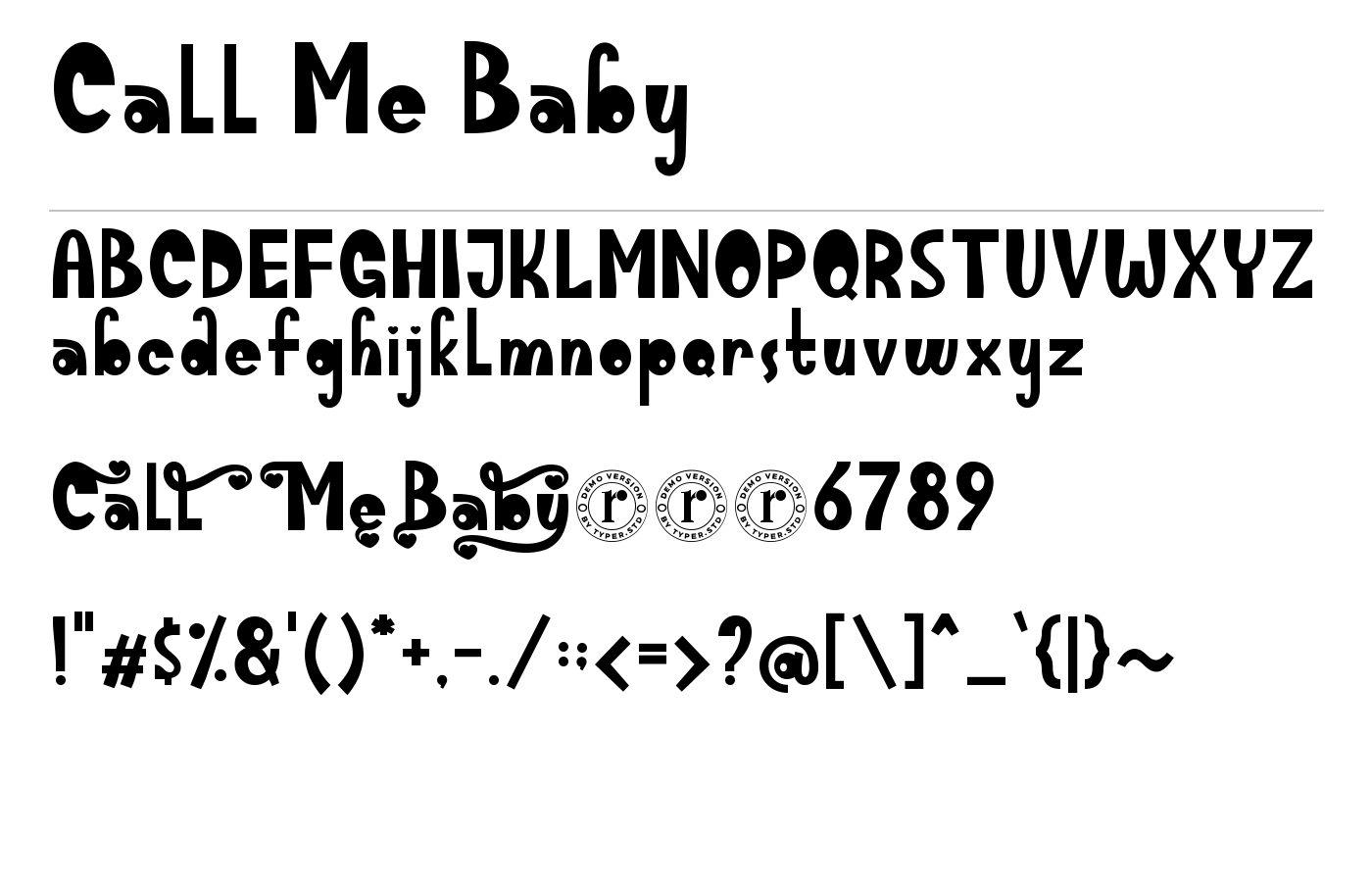
Call Me Baby is a bold and playful sans serif font with quirky, rounded letterforms that give it a fun, whimsical character. Its unique shapes and high x-height make it eye-catching and perfect for designs that want to convey a youthful, creative vibe. This font works well for logos, packaging, and headlines where a friendly, distinctive style is needed.
Call Me Baby Font
About Call Me Baby Font
| Font family | Call Me Baby Font |
| Designer | Rinto Hardianto (Typer) |